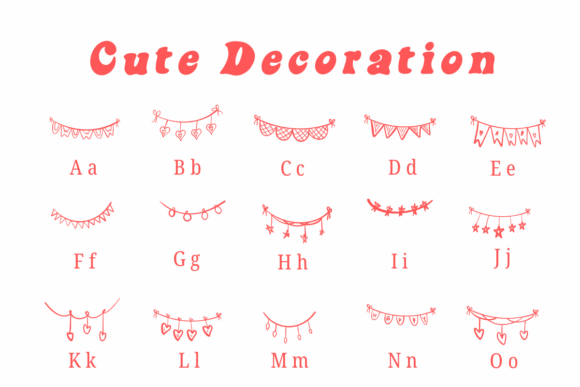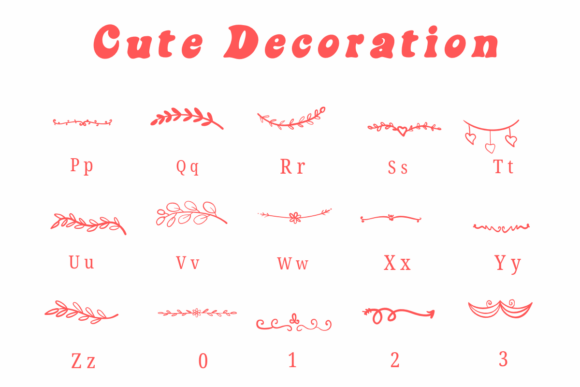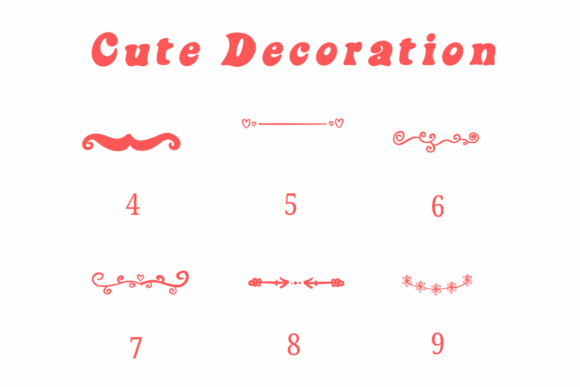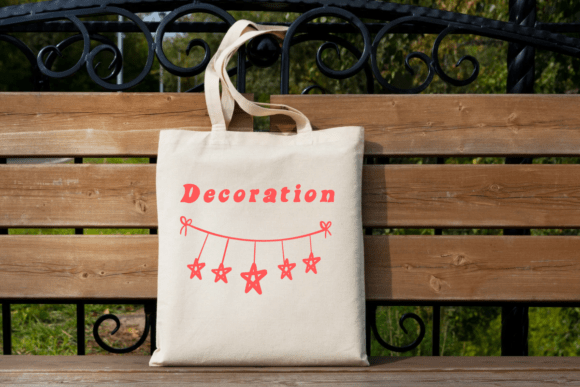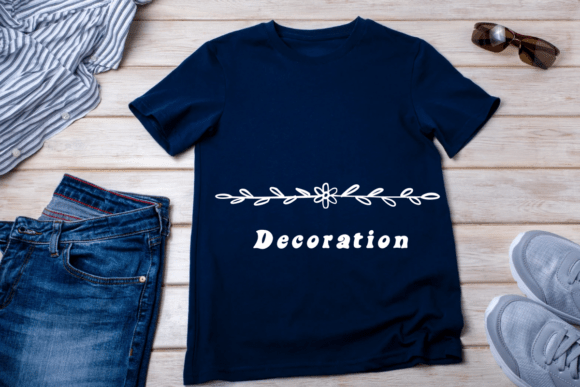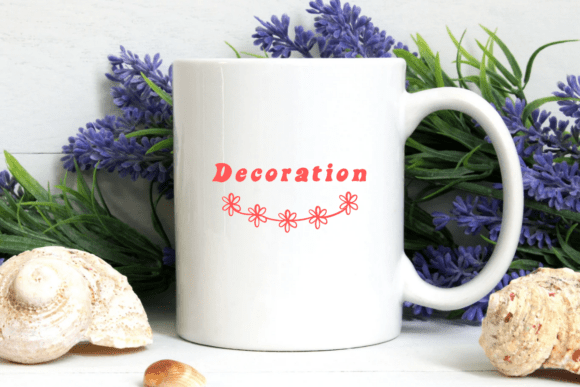
Cute Decoration Font: Elevate Your Designs with a Festive Touch
Are you looking for a font that can add a playful and festive touch to your creative projects? Look no further than Cute Decoration Font, a charming dingbats font that’s perfect for designers, crafters, and DIY enthusiasts. In this article, we’ll explore the features and benefits of Cute Decoration Font and show you how to incorporate it into your designs.
What is Cute Decoration Font?
Cute Decoration Font is a unique dingbats font that features a wide range of festive and decorative elements, including flowers, ribbons, and other ornaments. This font is designed to add a touch of whimsy and fun to your designs, making it perfect for projects that require a playful and creative approach.
Features of Cute Decoration Font
- Festive theme: Cute Decoration Font features a festive theme that’s perfect for holiday-themed designs, wedding invitations, and other celebratory projects.
- Dingbats characters: This font includes a wide range of dingbats characters, including flowers, ribbons, and other decorative elements.
- Scalable: This font is scalable, allowing you to use it in a variety of projects, from small crafts to large-scale designs.
Uses for Cute Decoration Font
Cute Decoration Font is a versatile font that can be used in a wide range of creative projects, including:
- Wedding invitations: Add a touch of elegance and whimsy to your wedding invitations with Cute Decoration Font.
- DIY projects: Use Cute Decoration Font to add a personal touch to your DIY projects, such as scrapbooking, card making, and crafts.
- Crafts: This font is perfect for crafters who want to add a decorative touch to their projects, such as knitting patterns, crochet designs, and paper crafting.
- Logos: Use Cute Decoration Font to create a unique and playful logo for your business or brand.
- Social media graphics: Add a festive touch to your social media graphics, such as Facebook posts, Instagram stories, and Pinterest pins.
Tips for Using Cute Decoration Font
Here are some tips for using Cute Decoration Font in your designs:
- Mix and match: Combine Cute Decoration Font with other fonts to create a unique and visually appealing design.
- Experiment with colors: Try out different colors and textures to add depth and interest to your design.
- Use it sparingly: Use Cute Decoration Font sparingly to avoid overwhelming your design. A little goes a long way!
- Have fun: Most importantly, have fun with Cute Decoration Font! Experiment with different designs and ideas to see what works best for you.
Cute Decoration Font is a versatile and fun font that’s perfect for designers, crafters, and DIY enthusiasts. With its festive theme and wide range of dingbats characters, this font is sure to add a touch of whimsy and creativity to your designs. Whether you’re creating wedding invitations, DIY projects, or social media graphics, Cute Decoration Font is a great choice. So why not give it a try and see what amazing designs you can create?
- What type of font is Cute Decoration Font? Cute Decoration Font is a dingbats font with a festive theme.